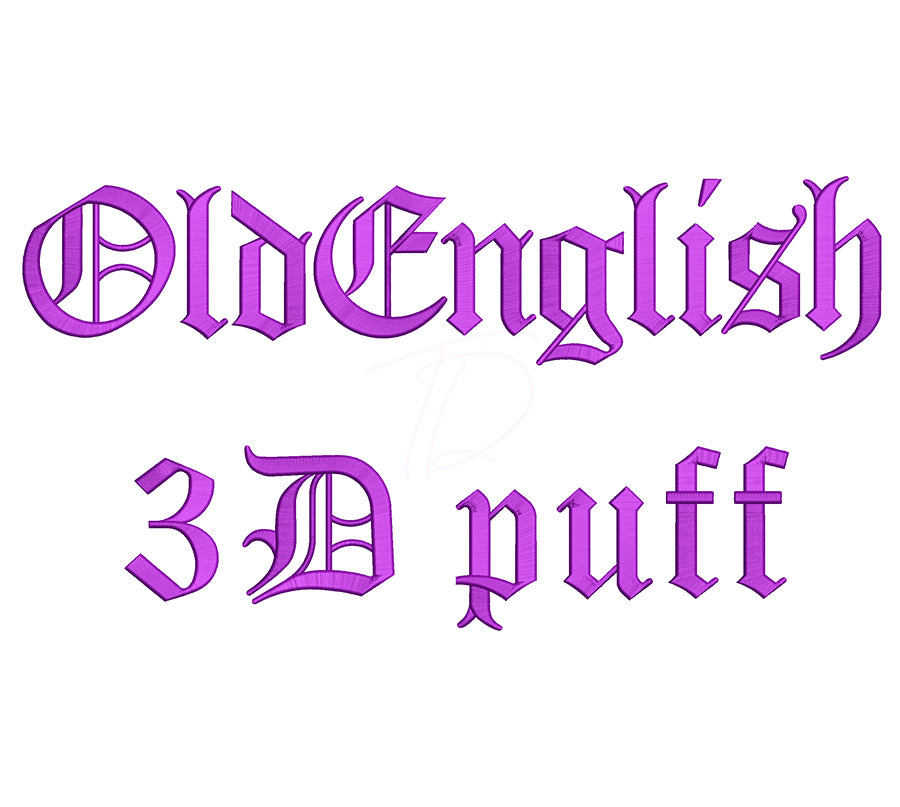
Old English 3D puff embroidery digital font. Machine embroidery alphabet with foam
Old English 3D puff embroidery digital font.
This font comes with letters in 3 sizes, A-Z, 0-9
You must use 3D puffy foam to achieve the 3D effect.